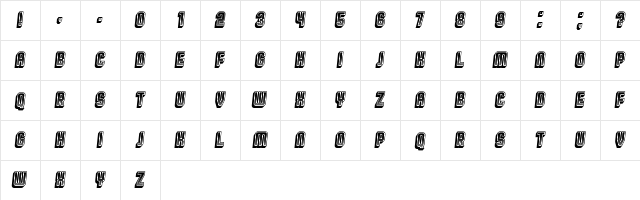
Broadway Gradient 3D Italic
Design Context for Broadway Gradient 3D Typeface
Broadway Gradient 3D is a composed and adaptable typeface that performs quietly and consistently across a wide range of design contexts. The dynamic lean of this cut emphasises speed and emphasis in any layout.
Pro Tip: Try Broadway Gradient 3D for annotation and caption copy alongside an upright companion — the contrast in angle creates a dynamic but ordered typographic system.